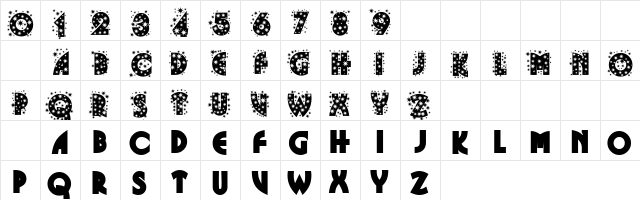
Glitter Font Regular
Design Context for Glitter Font Typeface
Glitter Font is a composed and adaptable typeface that performs quietly and consistently across a wide range of design contexts.